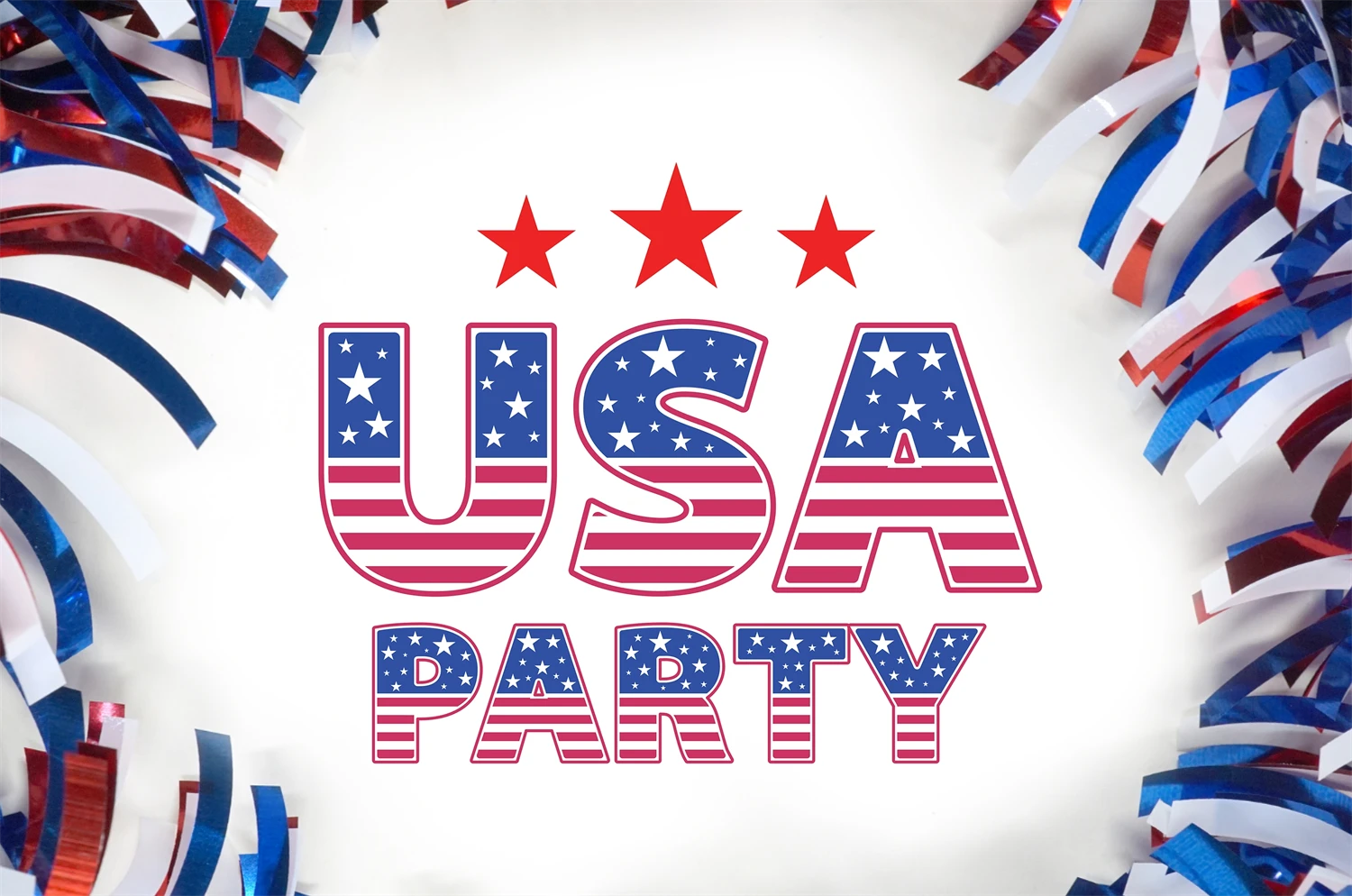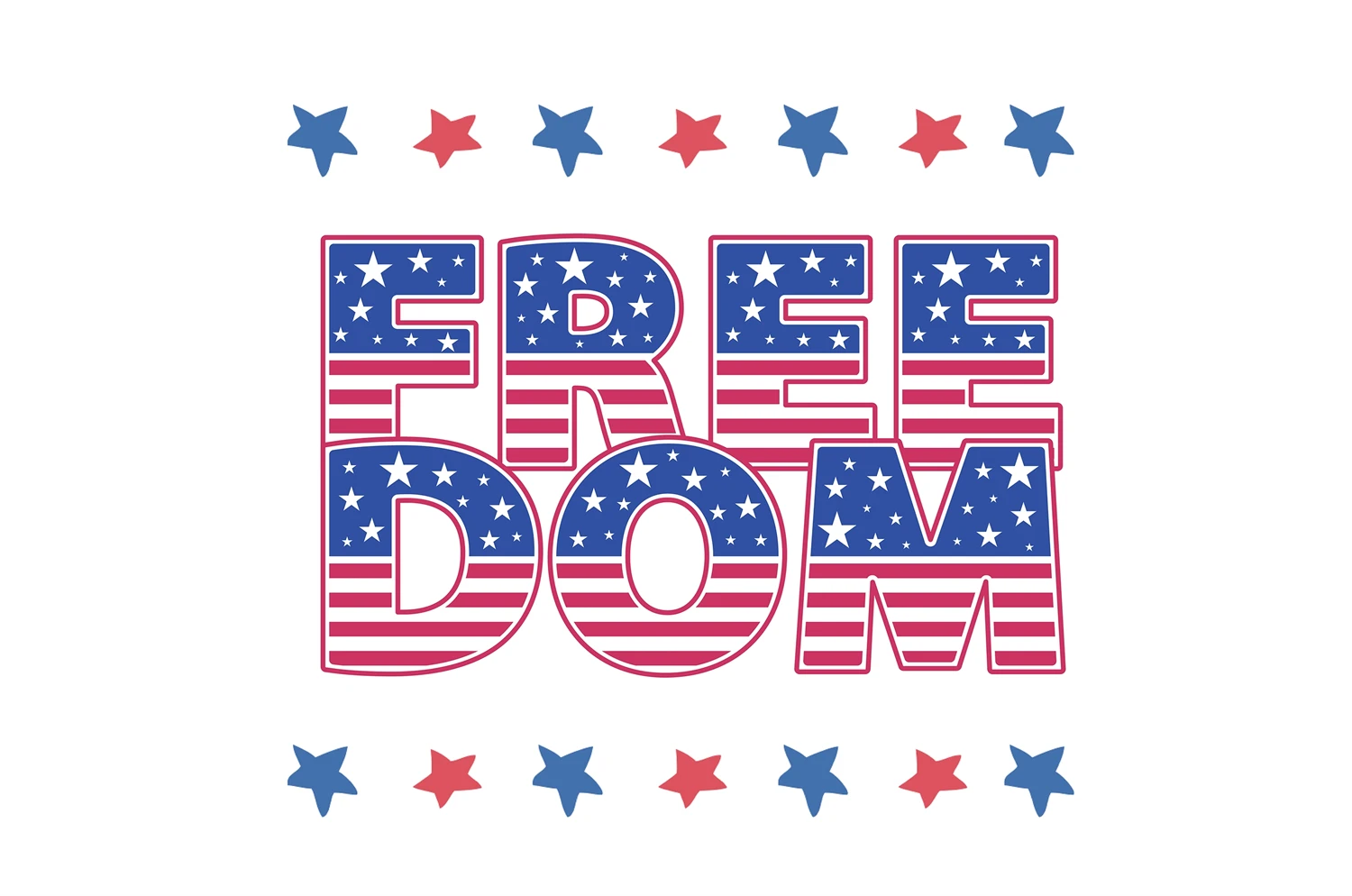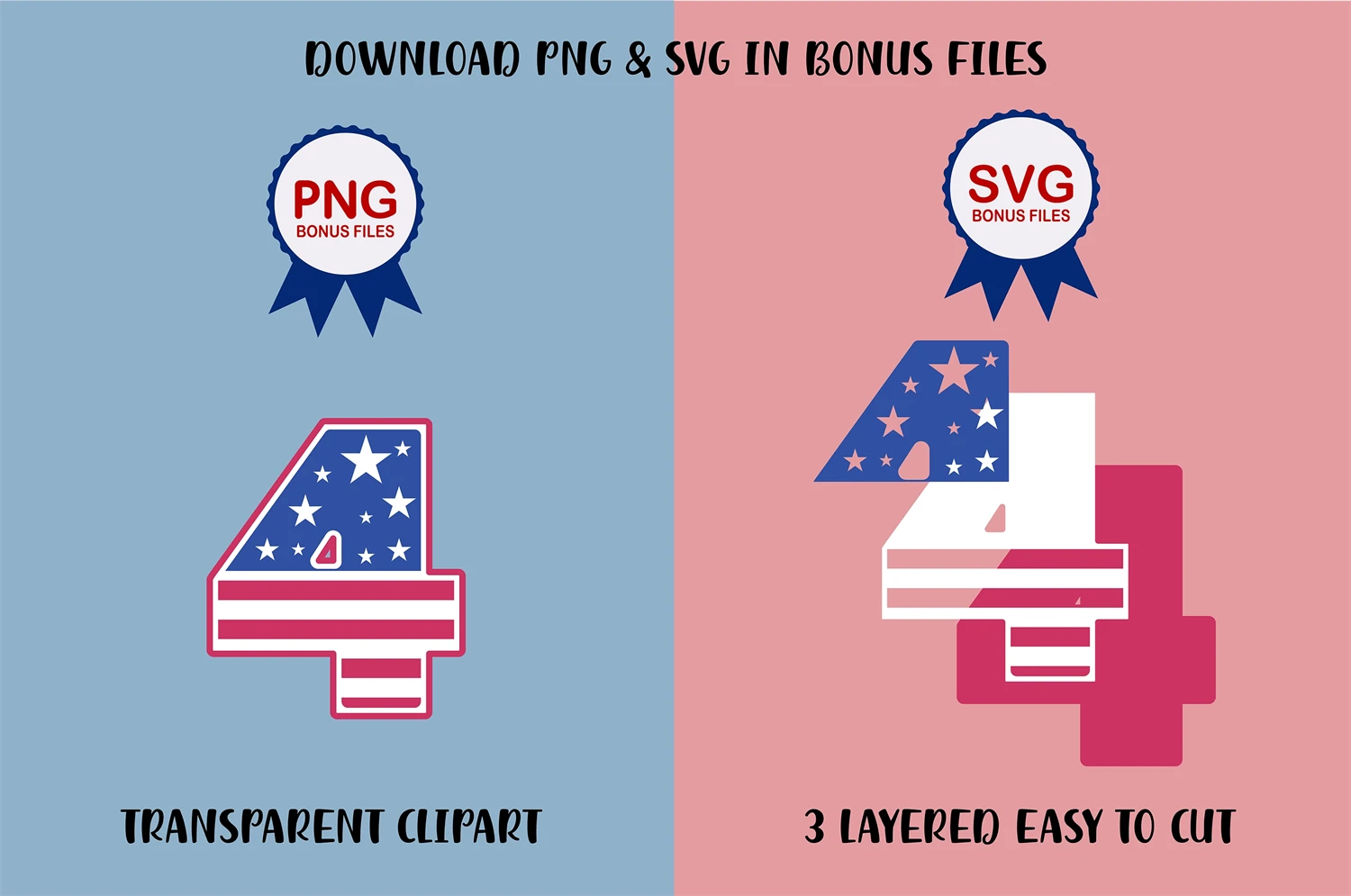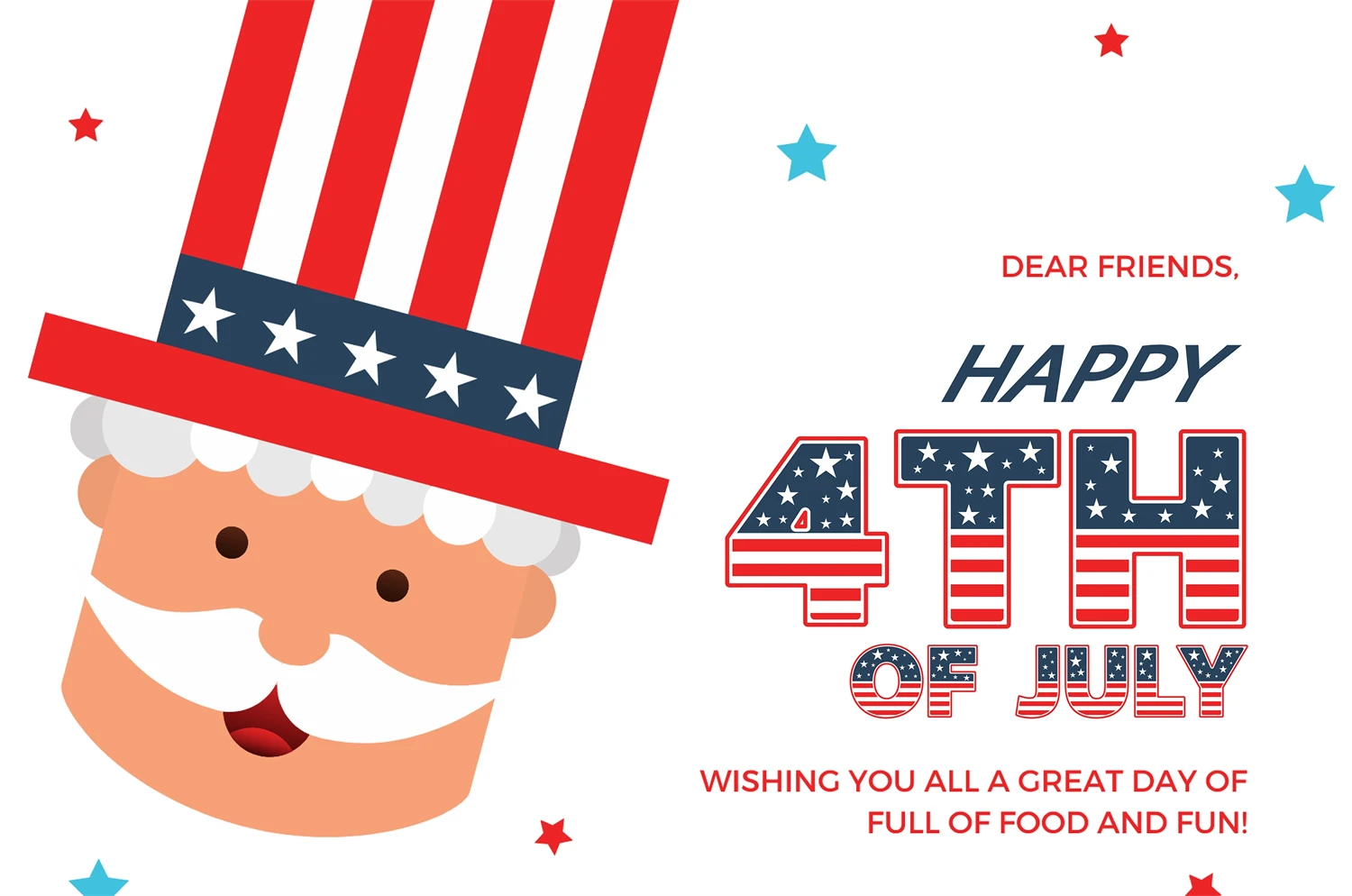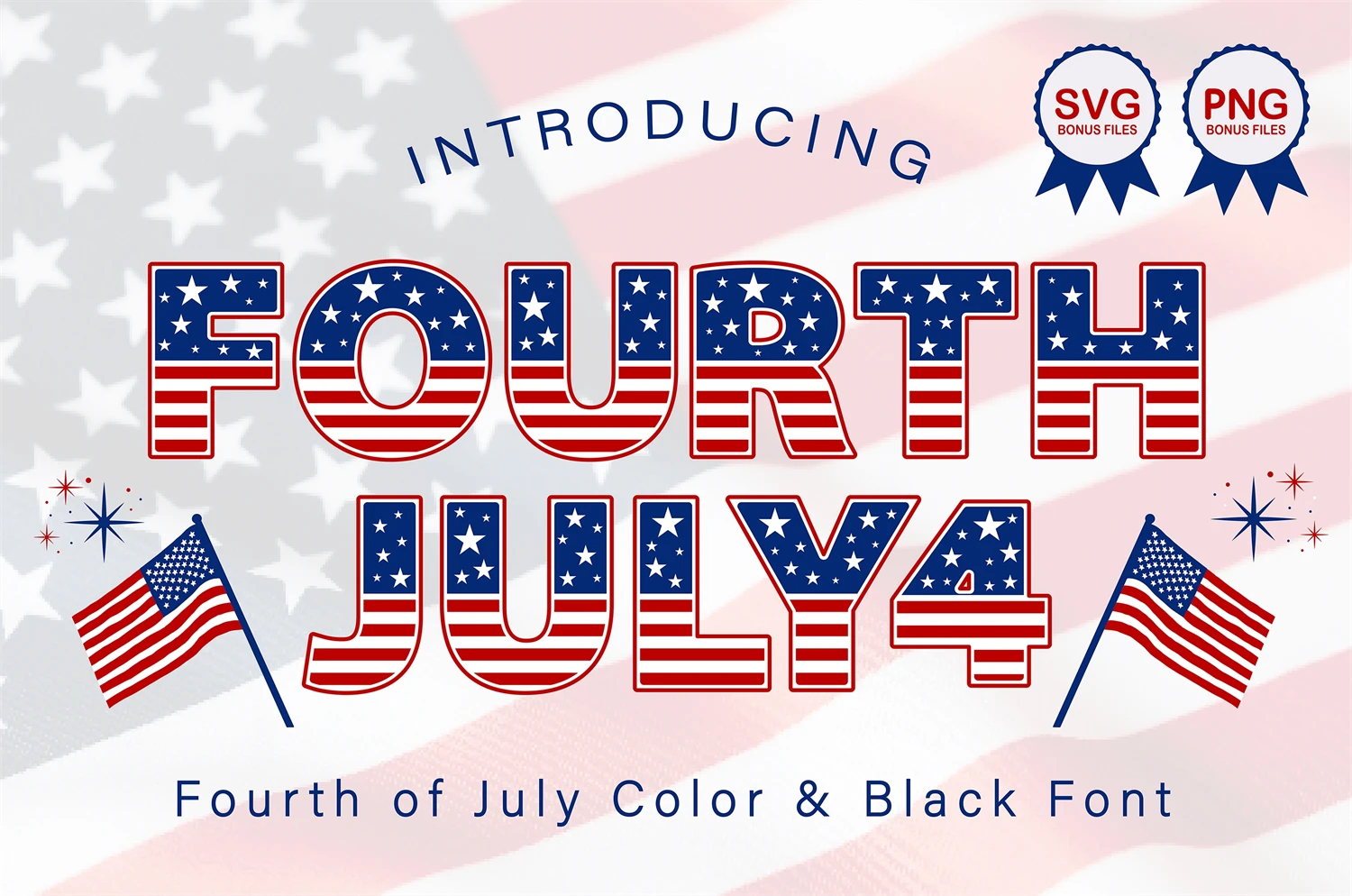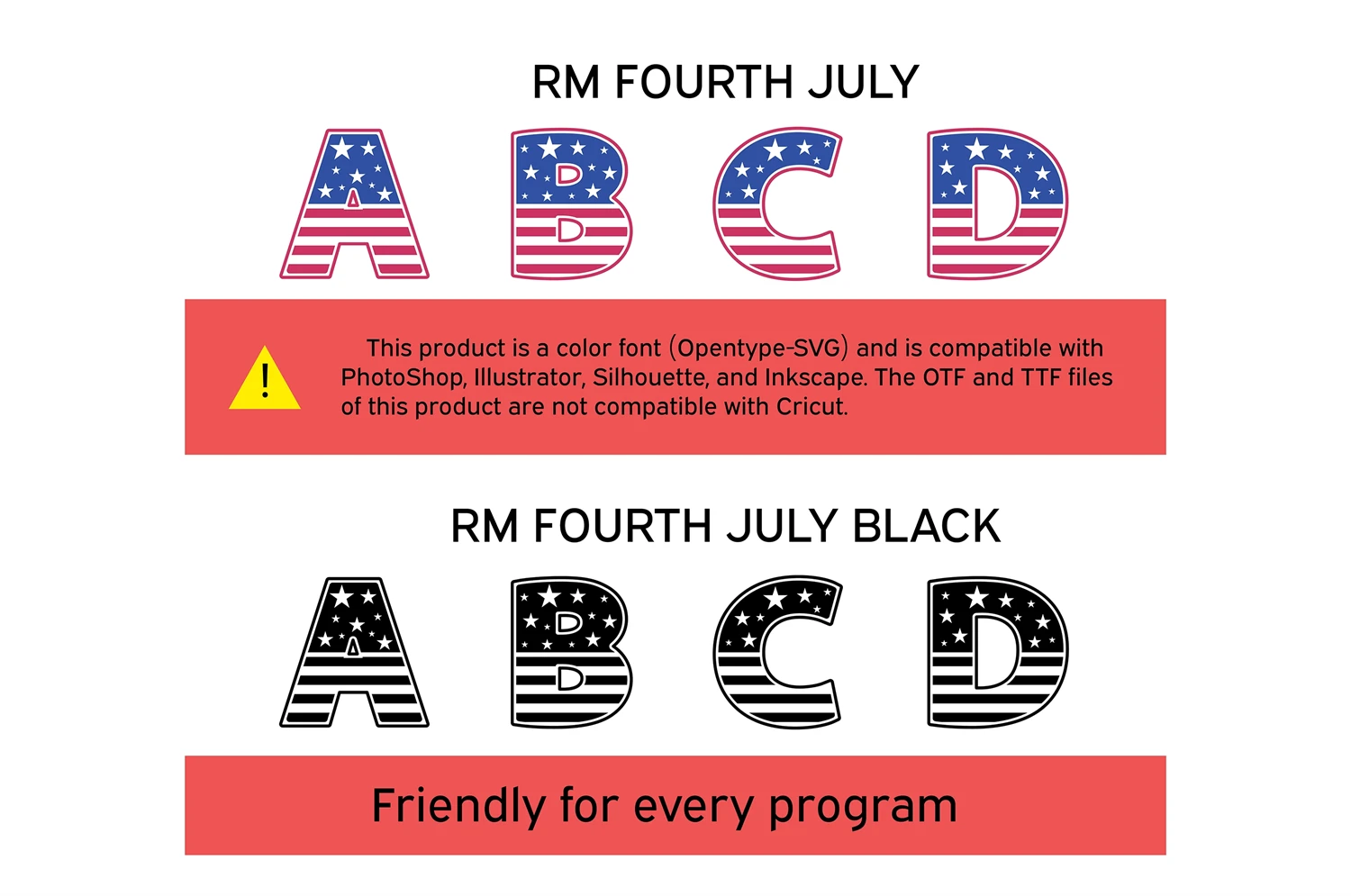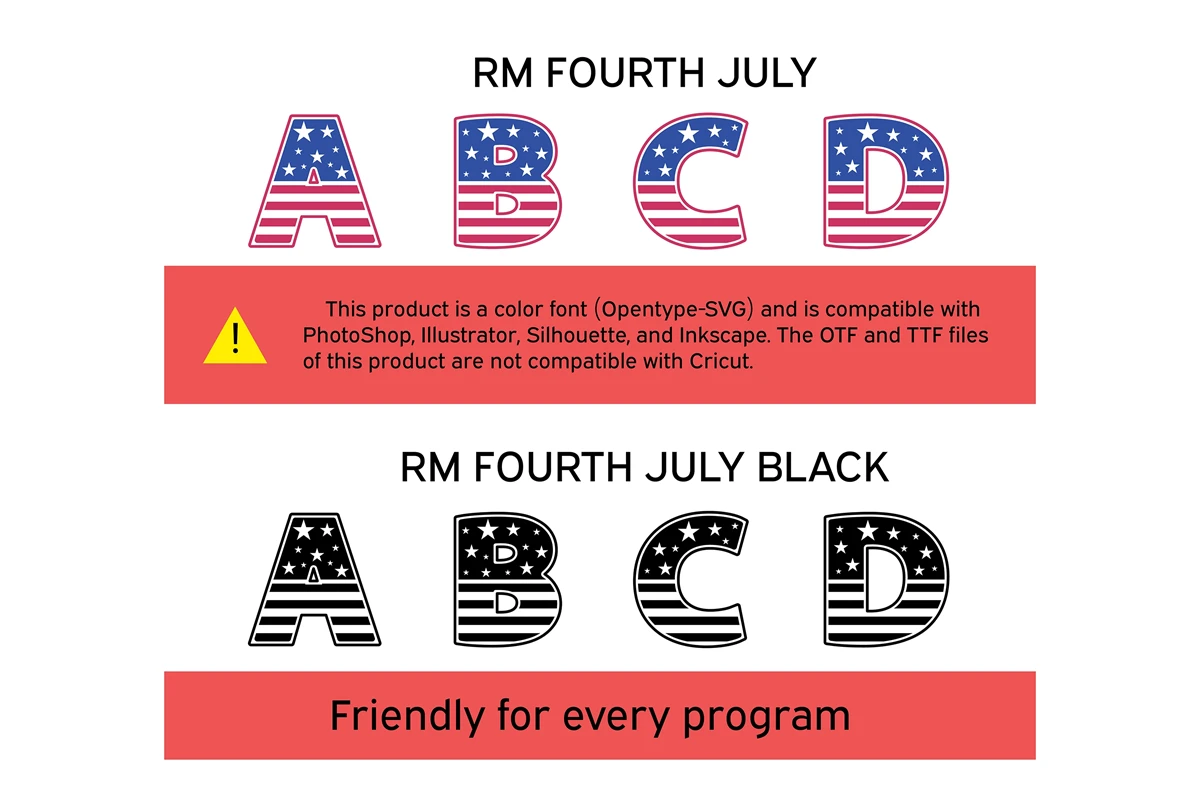
Introducing Fourth July, a sensational font that artistically embodies the spirit of the American flag. Designed to infuse any project with a patriotic pride, Fourth July is an ideal choice for grand 4th of July celebrations, showcasing American nationality, and for creating inspiring patriotic memorials. Express your love for America in every keystroke with Fourth July.